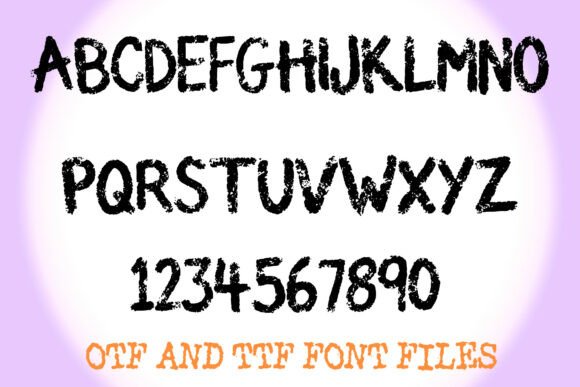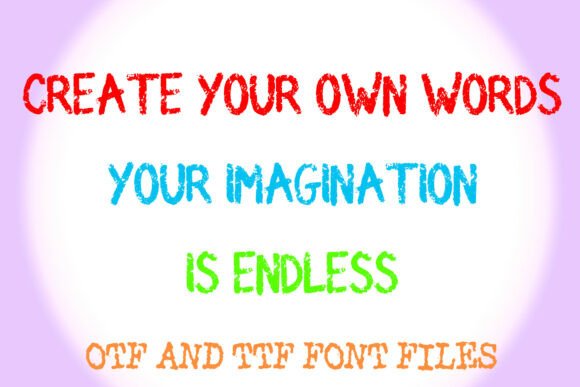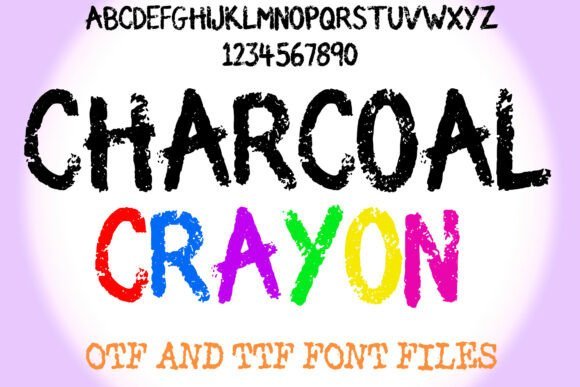
Unleashing Creativity with the Charcoal Crayon Font
Remember the thrill of holding a crayon in your small hands, watching as vibrant colors spilled across the page? The raw, unbridled energy of childhood creativity is something we all cherish, and for designers, capturing that essence in their work can be a challenge. But what if you had the perfect tool to unlock that playful spirit and bring it to life in your designs?
Enter the Charcoal Crayon Font, a bold and whimsical display font that embodies the spirit of rough crayon and charcoal strokes. With its textured edges and vibrant appeal, this font is perfect for children’s projects, classroom materials, posters, and handmade craft designs. Whether you’re working on a digital or print project, the Charcoal Crayon Font brings a fun and colorful energy that stands out from the crowd.
Charcoal Crayon Font Key Features
- Font Style: Hand-drawn, expressive, and playful, with a unique charcoal crayon aesthetic.
- Unique Characteristics: Features a distinctive, textured look with subtle imperfections, giving it a genuine, hand-drawn feel.
Designer Review: Charcoal Crayon Font
At first glance, the Charcoal Crayon Font seems like an intriguing choice for designers. Here’s my honest take on its strengths and weaknesses.
- Unique aesthetic: The Charcoal Crayon Font has a distinctive look that’s reminiscent of a crayon’s rough texture and a charcoal sketch.
- Playful feel: This font can add a fun and carefree vibe to your designs, making it perfect for creative projects or children’s materials.
- Customizability: Charcoal Crayon Font comes in a range of weights and styles, allowing designers to mix and match for different effects.
- Readability issues: In smaller sizes or for large blocks of text, the font’s rough texture can make it difficult to read.
- Limited versatility: While the font is great for creative projects, it might not be the best choice for formal or professional designs where a more polished look is required.
In conclusion, the Charcoal Crayon Font is a great choice for designers who want to add some personality and whimsy to their work. However, it’s essential to use it judiciously and consider the context in which it will be used.
Use the Charcoal Crayon Font to add a playful touch to your designs, such as:
Children’s party invitations and decorations
Education materials, such as worksheets and lesson plans
Marketing materials, such as social media posts and flyers
Remember to pair the Charcoal Crayon Font with a complementary color to enhance its effectiveness.